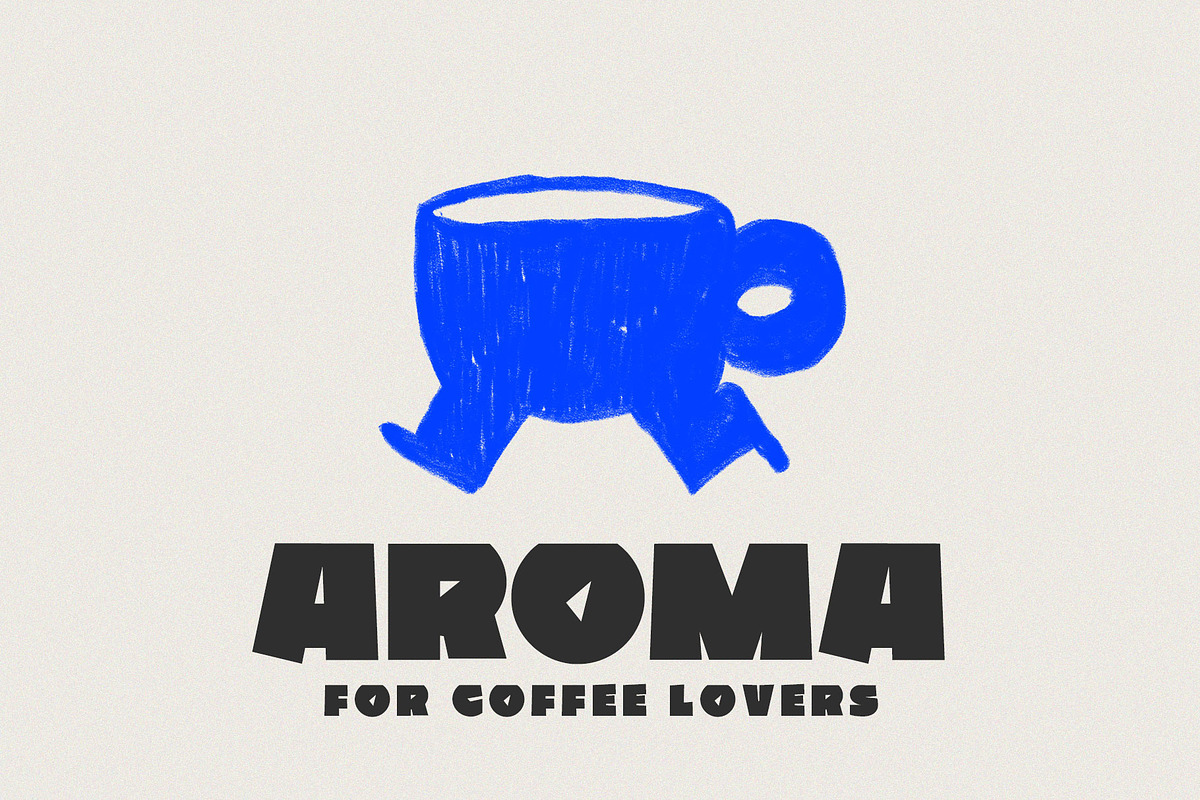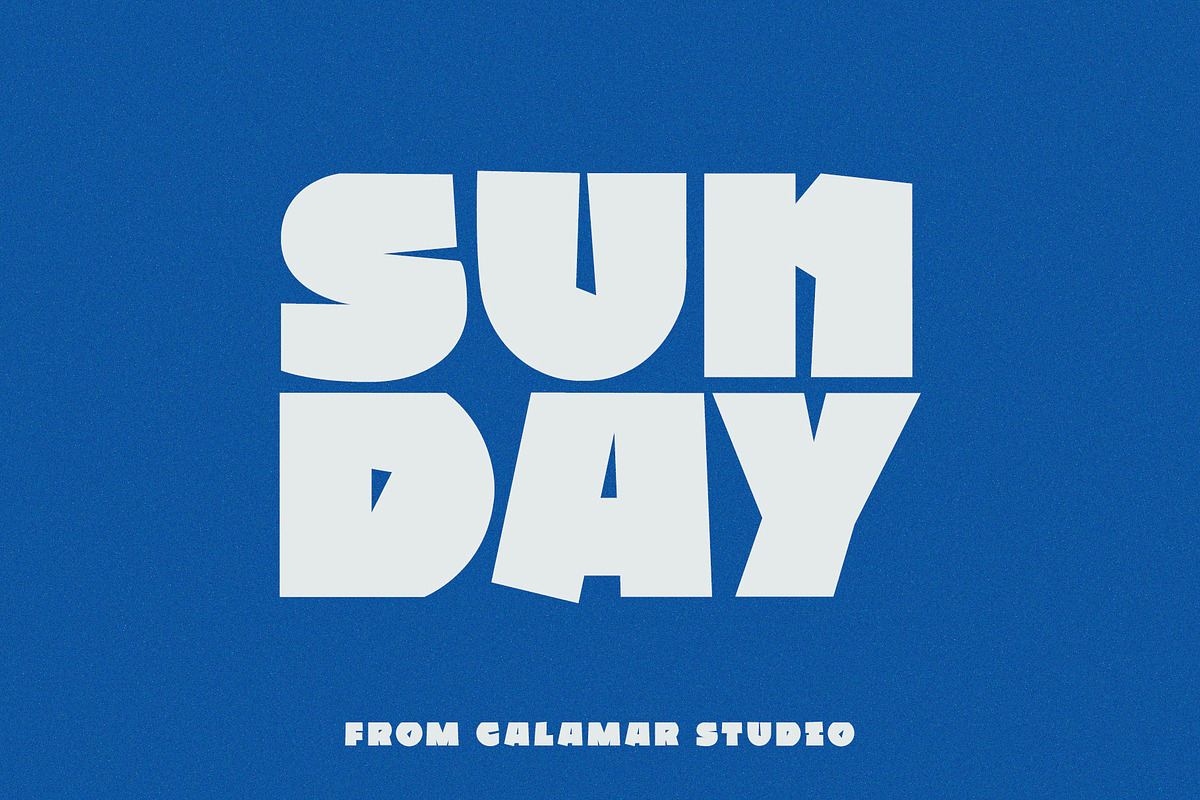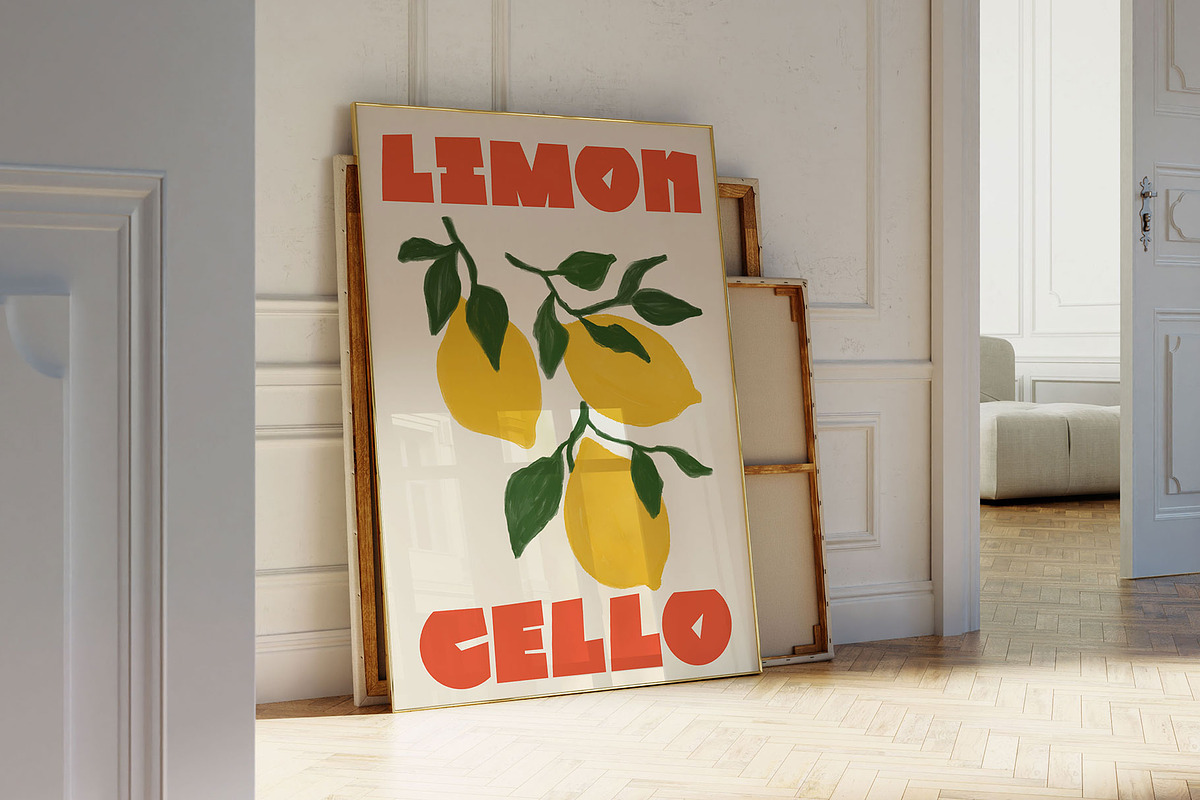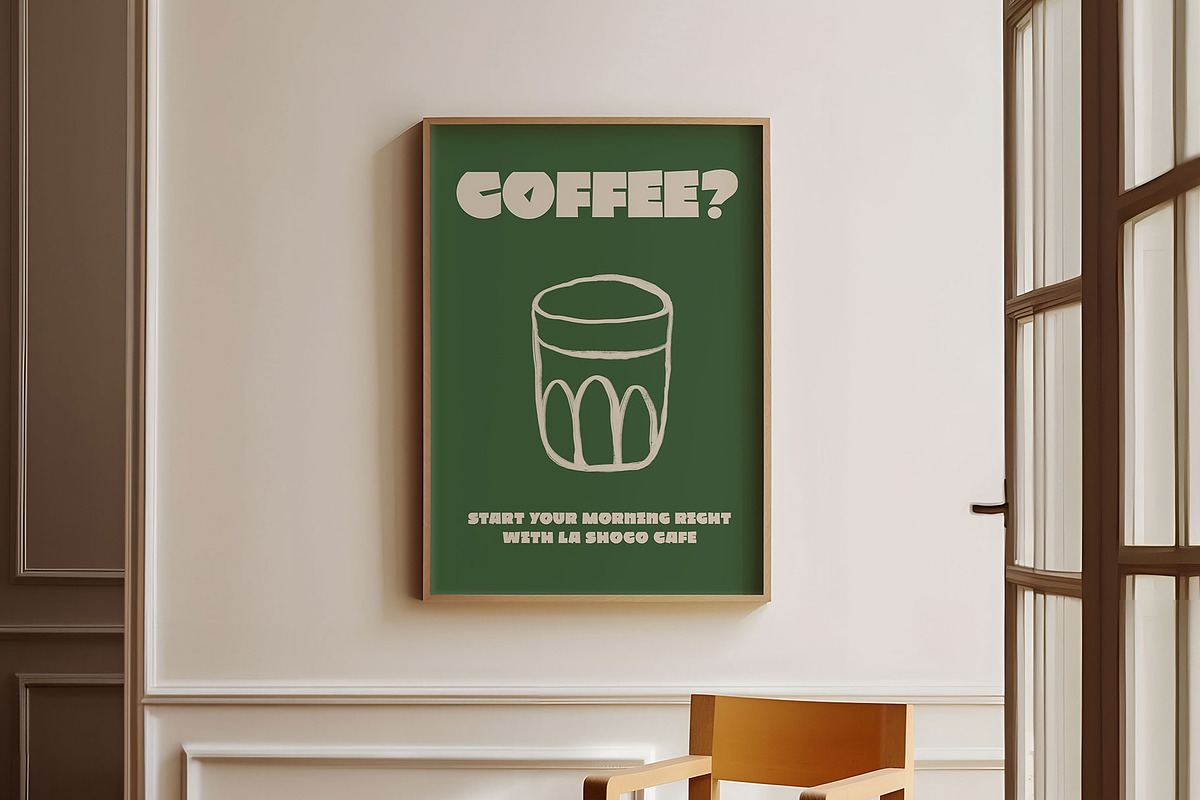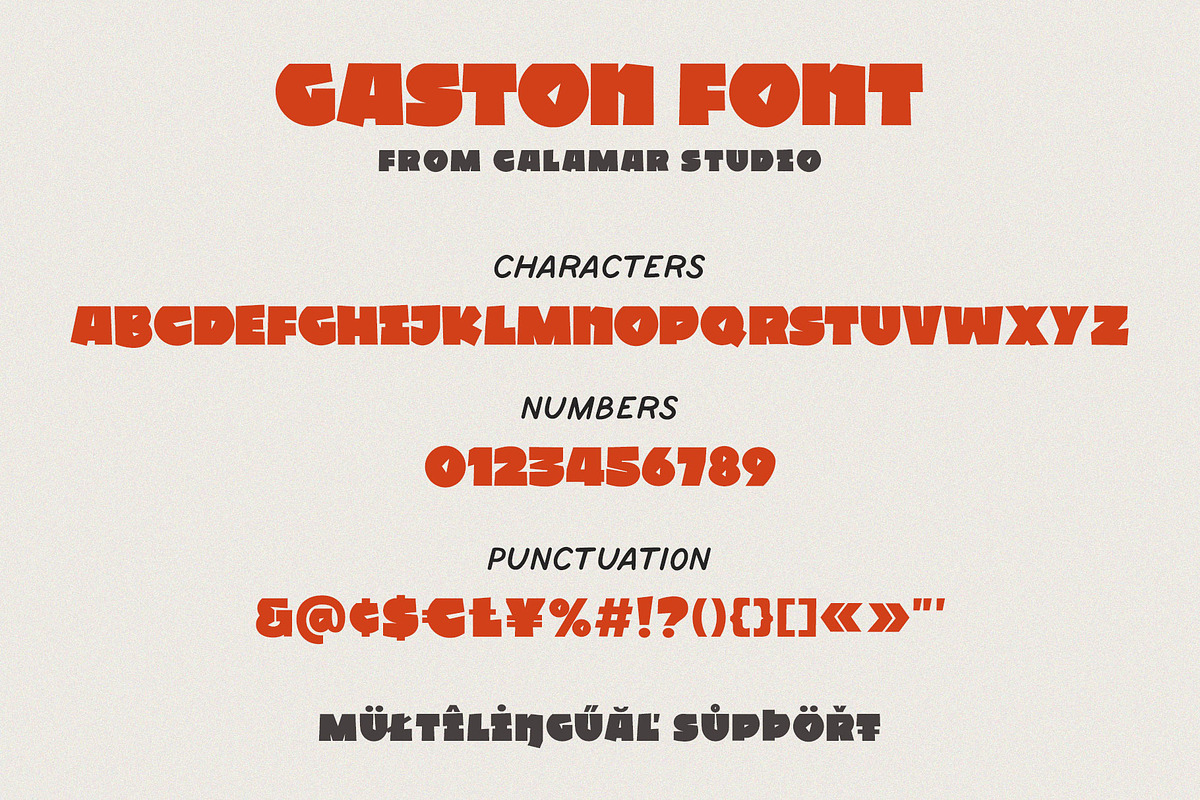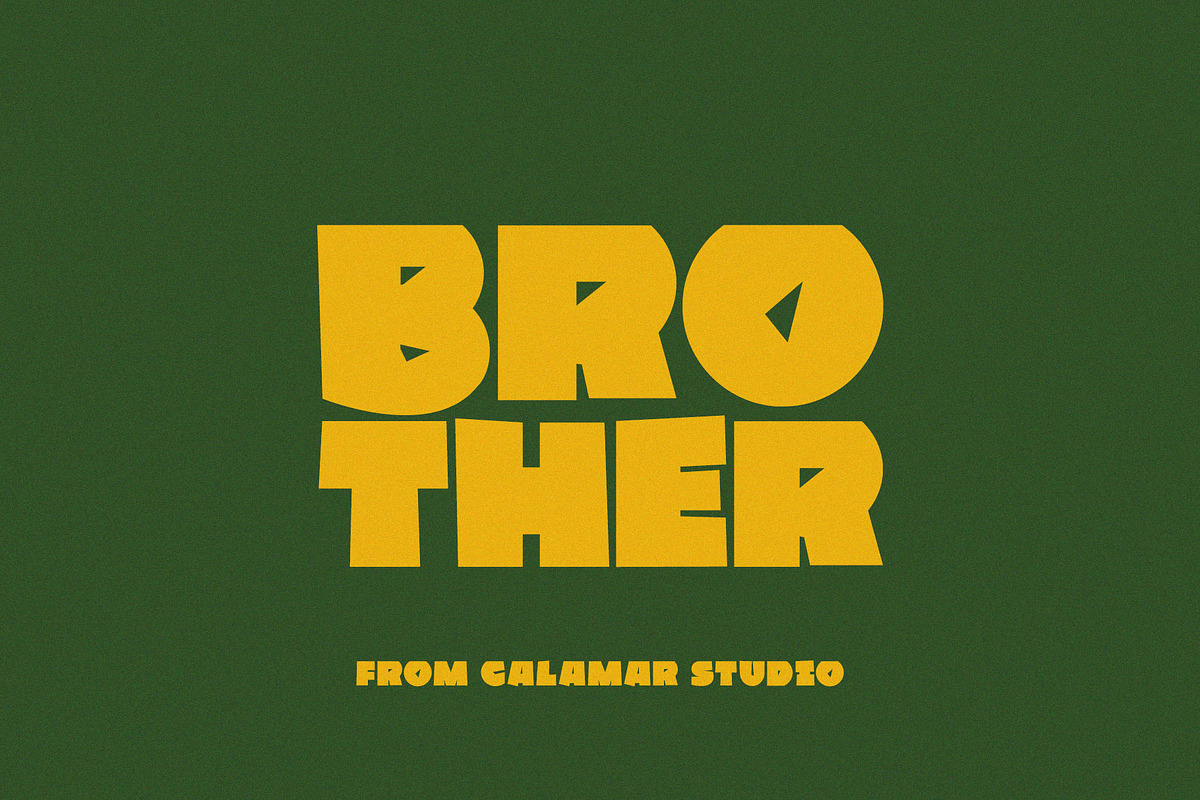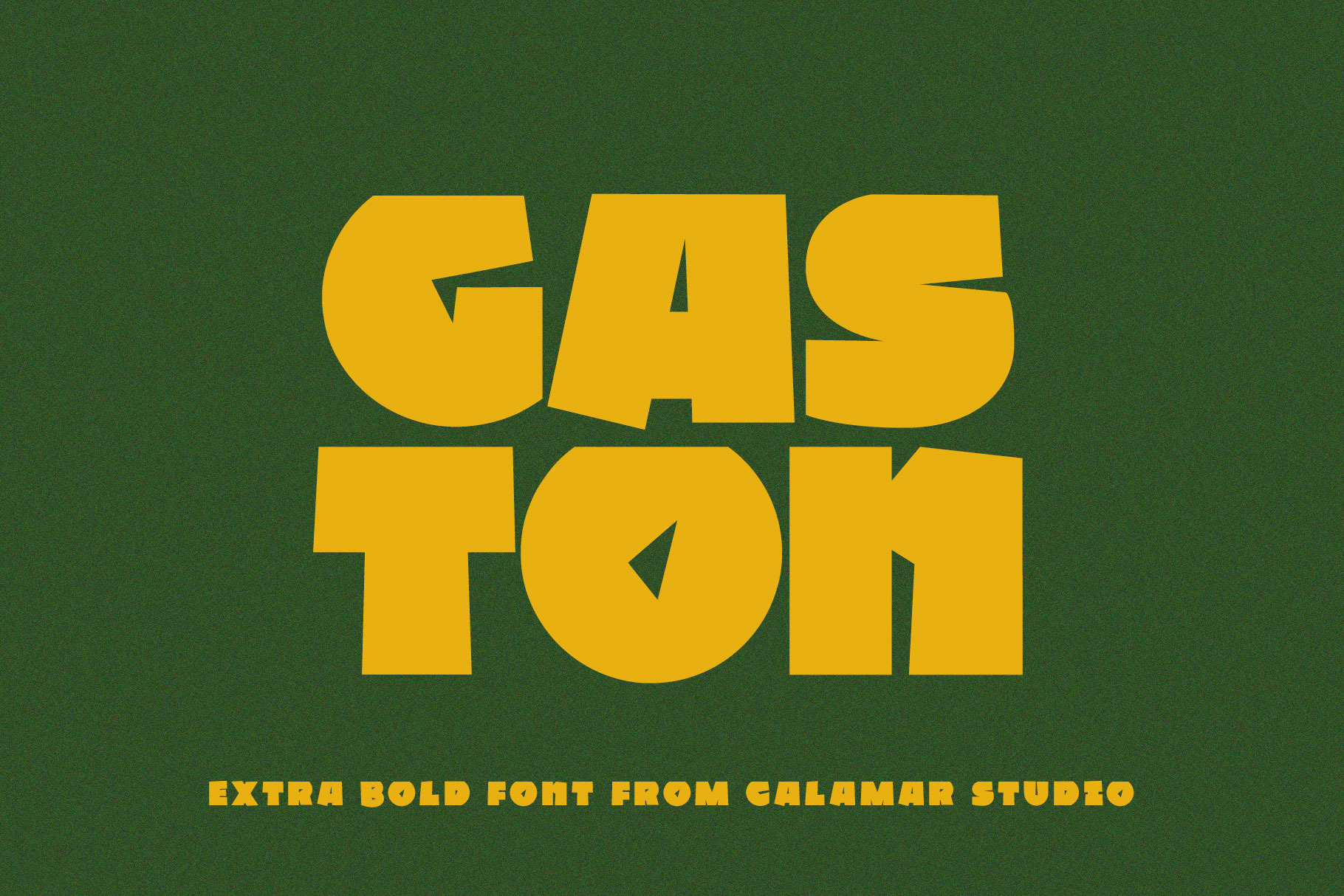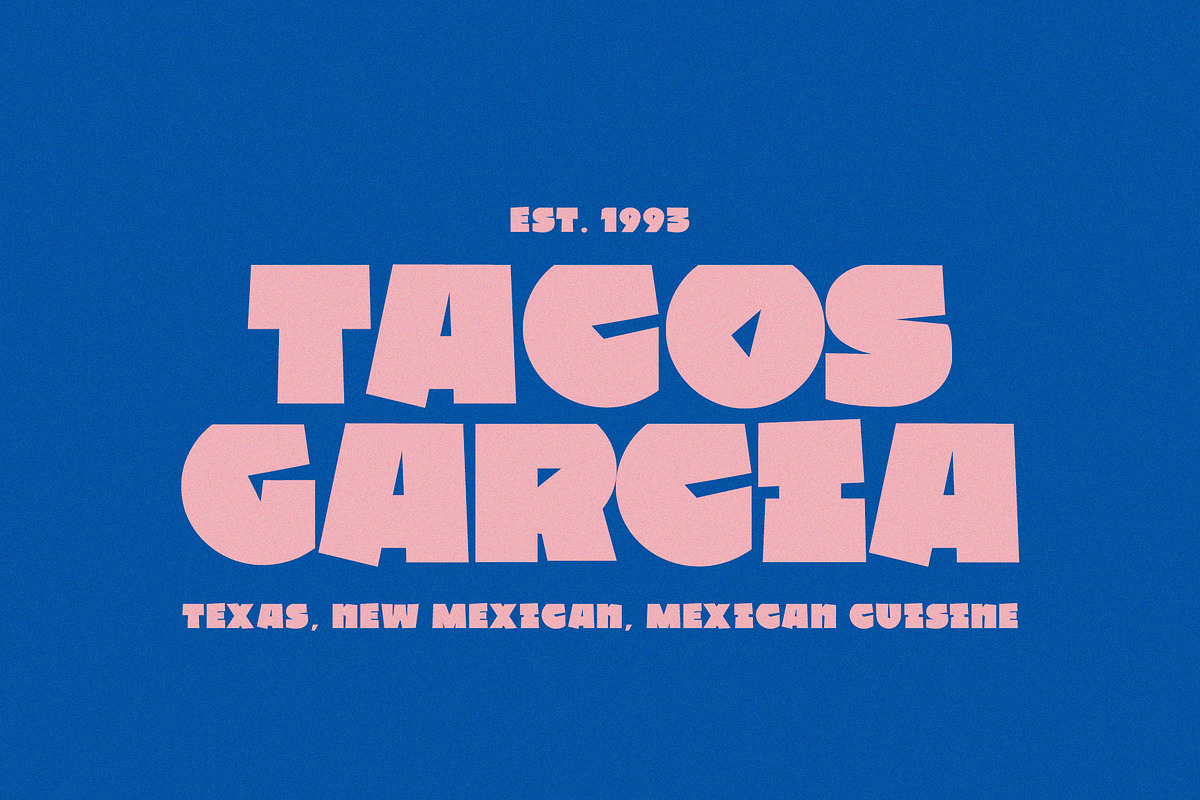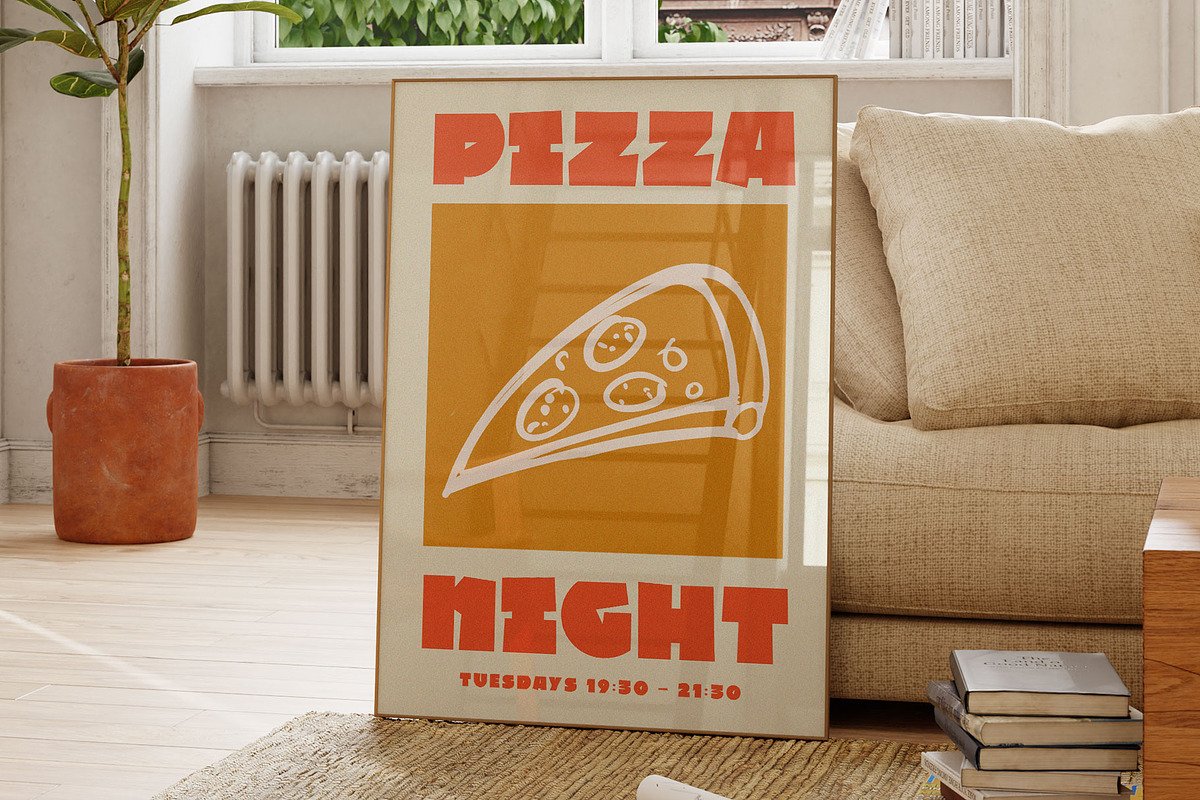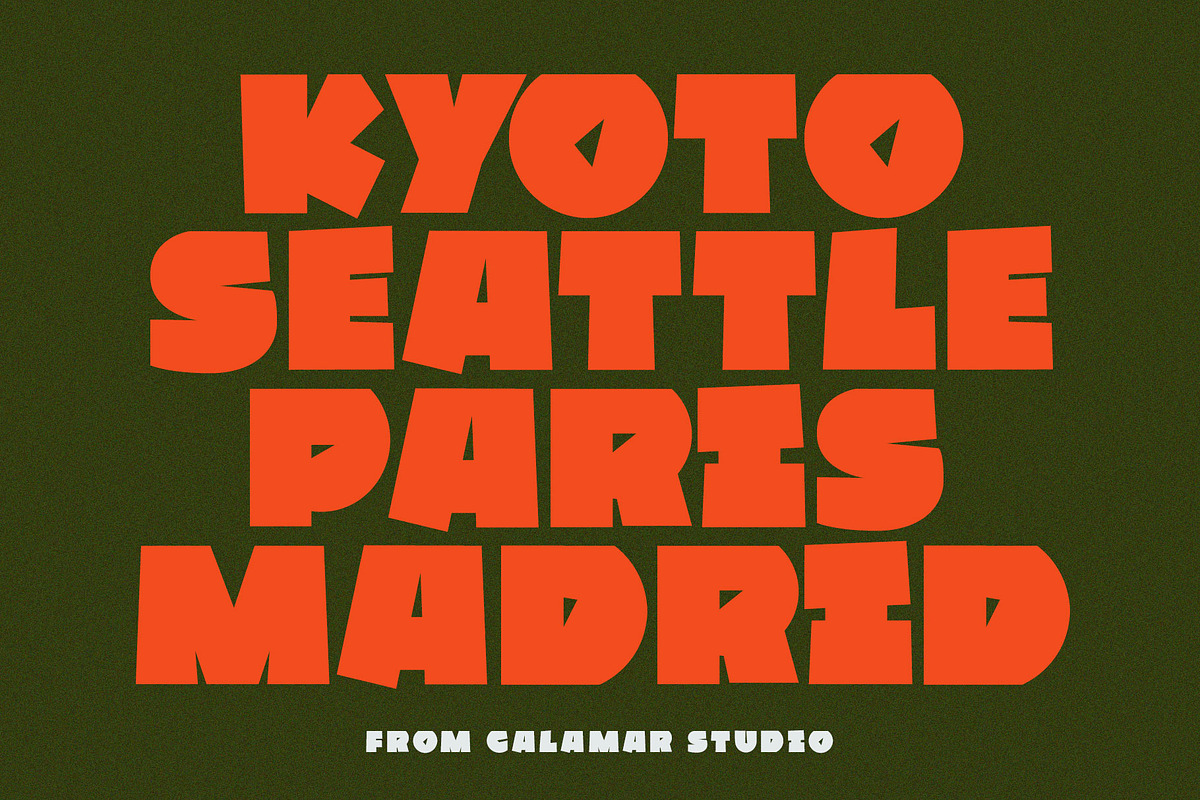
Extra Bold Sans Serif Font - Gaston
Meet the extra bold sans serif font Gaston that will look great for logos, stickers, posters, quotes. Get inspired by the previews :)